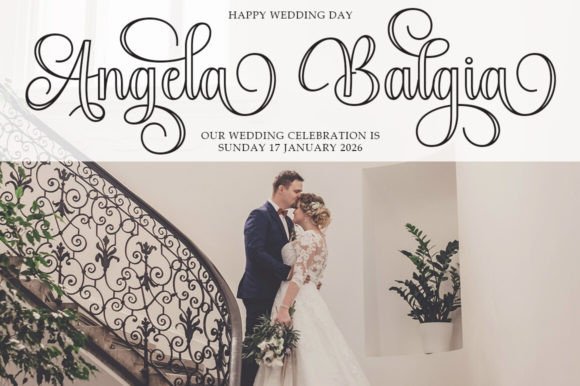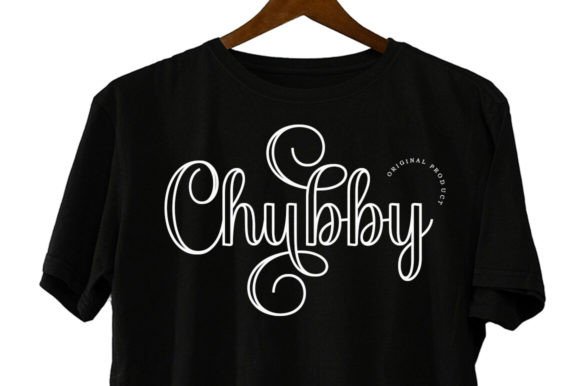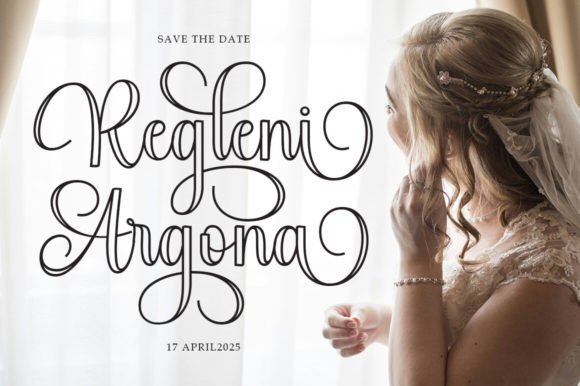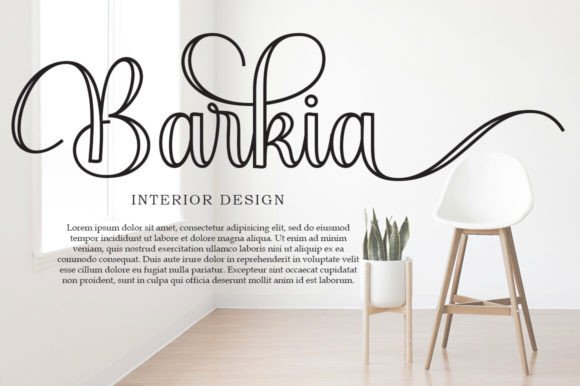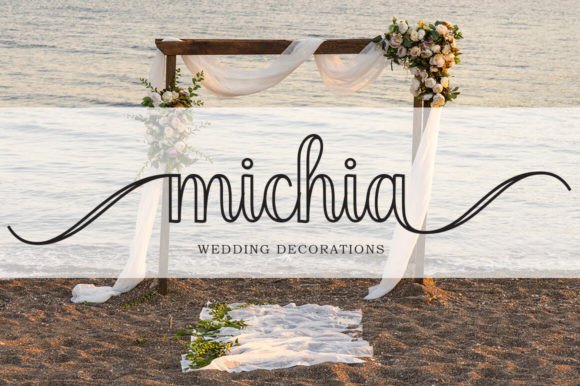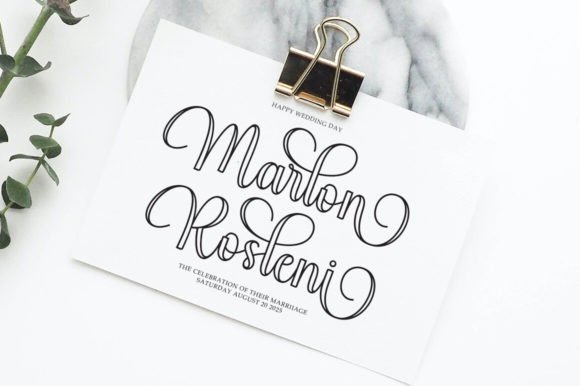
The Angel Font: Elevate Your Designs with Elegance
Have you ever been in the middle of working on a design project, and suddenly, you’re stuck on finding the perfect font? I recall a particularly frustrating experience while designing a wedding invitation for a client. The design was almost complete, but the font just wasn’t right. It was either too formal, too casual, or just plain boring. That’s when I discovered the Angel Font, specifically the Angel Outline style, which has since become a staple in my design toolkit.
A Personal Review: What I Love and What to Consider
What I Love About Angel Outline ✨
- ✅ Stylish and elegant script font perfect for special designs
- ✅ Versatile for use on wedding invitations, thank you cards, quotes, greeting cards, logos, business cards, and more
- ✅ Adds a sophisticated, handwritten touch to any design
While Angel Outline is a beautiful font, there are a few things to keep in mind:
- ⚠️ Not suitable for very long texts or body content; best used for titles, headings, or short messages
The Story Behind Angel Outline: A Designer’s Inspiration
While the specific origins of Angel Outline might not be well-documented, it’s clear that the font was created with the intention of bringing a touch of elegance and sophistication to designs. The designer likely sought to craft a font that would be versatile enough for a variety of applications, from formal events like weddings to more personal projects. The result is a font that exudes charm and refinement, making it a beloved choice among designers.
Q: Is Angel Outline suitable for body text or long-form content?
Angel Outline is best suited for titles, headings, and short messages due to its elegant, script nature. For body text or long-form content, a more readable font is typically recommended.